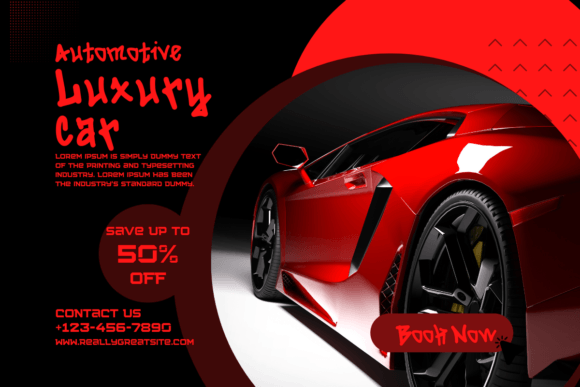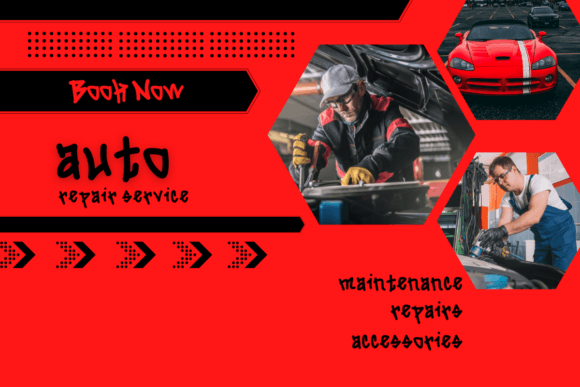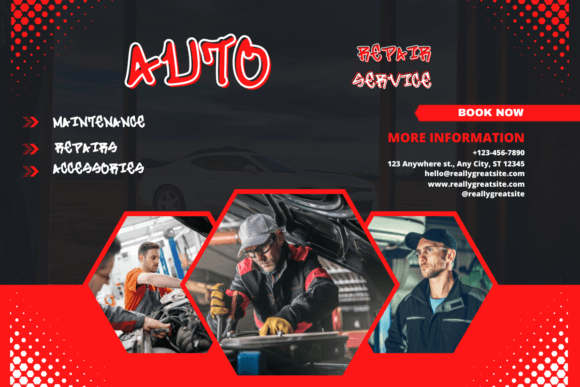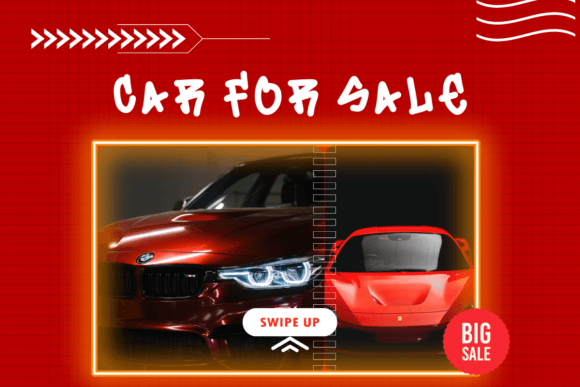
The Quest for the Perfect Font: Discovering Drift King
I’ll never forget the frustration of working on a design project, hours spent crafting the perfect layout, only to be stumped by the font choice. My client wanted something ‘clean, beautiful, and handwritten’ – a tall order! That’s when I stumbled upon Drift King, a gem of a font that has since become a staple in my design toolkit.
An Honest Review of Drift King
So, what makes Drift King so special? Let’s dive into the good stuff and a few quirks I’ve noticed.
- ✨ Authentic Handwritten Feel: Drift King nails that delicate balance between being distinctly handwritten and highly legible.
- ✅ Clean and Simple: The font’s clean lines make it perfect for a wide range of creative projects, from crafting to digital design.
- 💡 Versatility: It’s suitable for headings, body text, and even decorative elements, making it a versatile addition to any designer’s toolkit.
- 🤔 Limited Extras: While Drift King is fantastic on its own, it doesn’t come with a vast array of extras like some other fonts. You’ll need to get creative with what you’re given.
- ⚠️ Not Ideal for Tiny Text: Like many beautiful handwritten fonts, Drift King can lose its charm when scaled down too far. It’s best used at larger sizes where its details can shine.
The Story Behind Drift King
While the origins of Drift King might be shrouded in mystery, it’s clear that its designer aimed to create a font that embodies both elegance and playfulness. Imagine a designer, inspired by the fluidity of handwriting and the precision of digital typography, setting out to craft a font that feels both personal and professional.
| Author | Juggabee |
Q: What makes Drift King unique?
A: Its clean, beautiful, and handwritten appearance sets it apart, making it perfect for projects needing authentic typography.
Q: Does Drift King support OpenType features?
A: Yes, Drift King supports OpenType features, allowing for advanced typographic styling.
Q: Is Drift King difficult to read?
A: No, one of Drift King’s strengths is its legibility, making it suitable for both headings and body text.